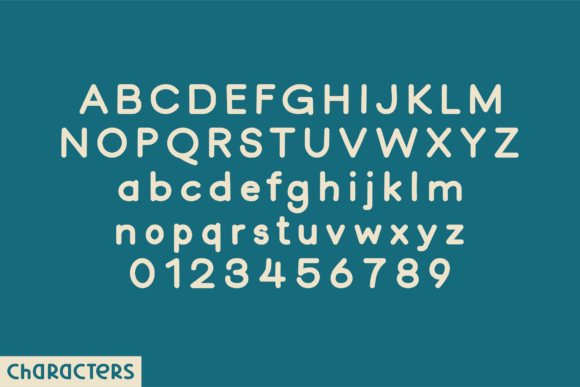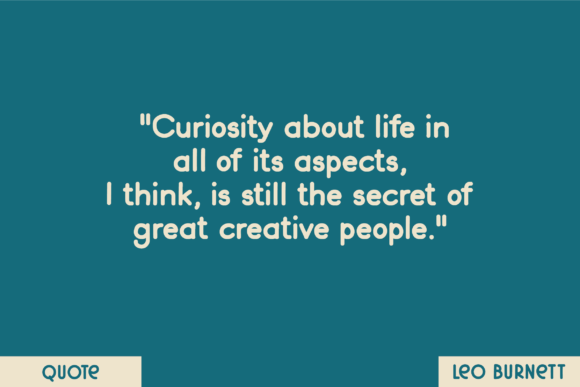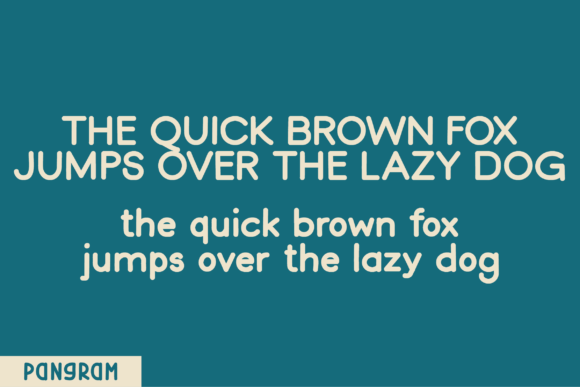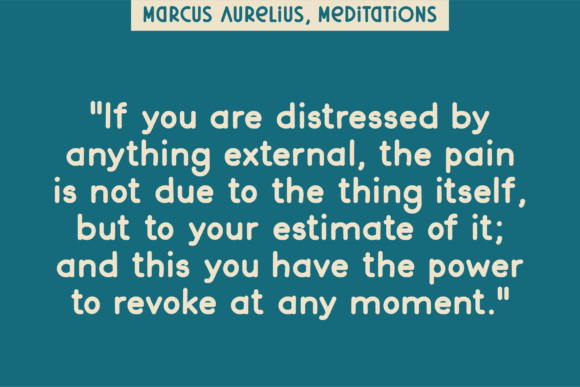
Dainty Doodles Font: Elevate Your Designs with a Touch of Classic Elegance
Are you a designer or crafter looking for a font that can add a classic touch to your quotes, notes, tees, and product designs? Look no further than Dainty Doodles, a beautiful natural sans serif font that’s perfect for a wide range of creative projects. In this article, we’ll take a closer look at the Dainty Doodles font, its features, and how you can use it to elevate your designs.
What is Dainty Doodles Font?
Dainty Doodles is a natural sans serif font that’s designed to bring a touch of classic elegance to your designs. Its clean and simple lines make it perfect for use in a variety of projects, from quotes and notes to tees and product designs. The font’s natural and effortless look makes it ideal for designers and crafters who want to create designs that feel organic and authentic.
Key Features of Dainty Doodles Font
So, what makes Dainty Doodles font so special? Here are some of its key features:
• Natural Sans Serif Design: Dainty Doodles has a clean and simple sans serif design that’s perfect for creating classic and elegant designs.
• Effortless Look: The font’s natural and effortless look makes it ideal for designers and crafters who want to create designs that feel organic and authentic.
• Highly Versatile: Dainty Doodles is a highly versatile font that can be used in a wide range of projects, from quotes and notes to tees and product designs.
• Easy to Read: The font’s clear and simple lines make it easy to read, even at small sizes.
How to Use Dainty Doodles Font
Now that we’ve covered the key features of Dainty Doodles font, let’s take a look at how you can use it in your designs. Here are some ideas to get you started:
• Quotes and Notes: Dainty Doodles is perfect for creating beautiful quotes and notes that feel classic and elegant.
• T-Shirts and Apparel: The font’s clean and simple design makes it ideal for use on t-shirts and other apparel.
• Product Designs: Dainty Doodles can be used to create beautiful product designs, from labels and packaging to branding and marketing materials.
• Stationery and Invitations: The font’s classic and elegant design makes it perfect for use in stationery and invitations.
Tips for Getting the Most Out of Dainty Doodles Font
Here are some tips for getting the most out of Dainty Doodles font:
• Experiment with Different Sizes: Dainty Doodles looks great at a wide range of sizes, so don’t be afraid to experiment and find the perfect size for your design.
• Pair it with Other Fonts: Dainty Doodles can be paired with other fonts to create a unique and interesting design.
• Use it in Combination with Images: The font’s clean and simple design makes it perfect for use in combination with images.
Dainty Doodles font is a beautiful natural sans serif font that’s perfect for designers and crafters who want to add a classic touch to their designs. Its clean and simple lines make it highly versatile and easy to use, and its effortless look makes it ideal for creating designs that feel organic and authentic. Whether you’re creating quotes, notes, tees, or product designs, Dainty Doodles is a great choice.